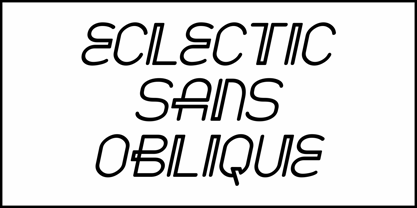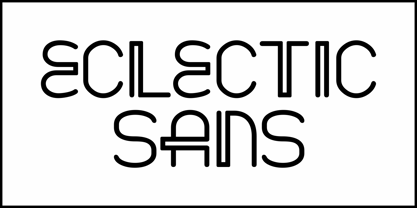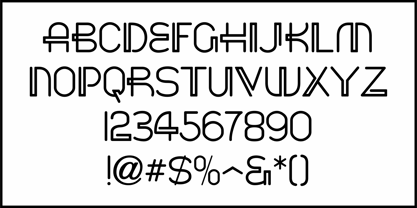
Eclectic Sans JNL
by Jeff Levine
The Eclectic Sans JNL Font Family was designed by Jeff Levine and published by Jeff Levine. Eclectic Sans JNL contains 2 styles and family package options.
This unusual and stylized sans serif type design comes from the 1954 publication "101 Alphabets" by Ben & Ed C. Hunt with a combination of Art Deco influence and modernistic experimentation that creates lettering that is sure to draw attention. Today's designers can enjoy the font digitally and it is now available as Eclectic Sans JNL in both regular and oblique versions. Visit Jeff Levine for more unique type designs.
About Jeff Levine
Jeff Levine has been in love with lettering since the third grade, when a schoolmate brought a lettering stencil into class. He has worked in both the graphics and music industries, and began his work with digital type via his own site, which hosted over one hundred free dingbat fonts until its retirement in 2009. Although these fonts were experimental at best, Jeff received "thank you" letters from points all over the world for making his designs available. Encouraged by these responses, Jeff decided to set his sights on creating interesting and commercially viable type fonts.